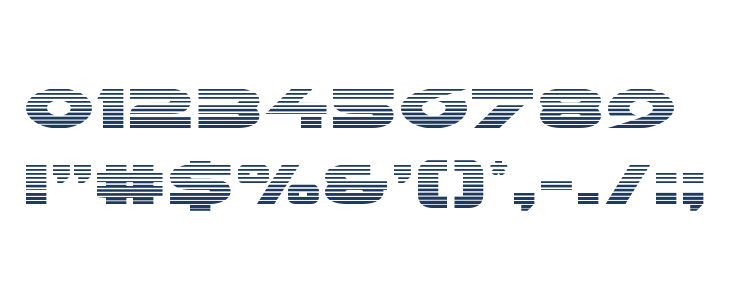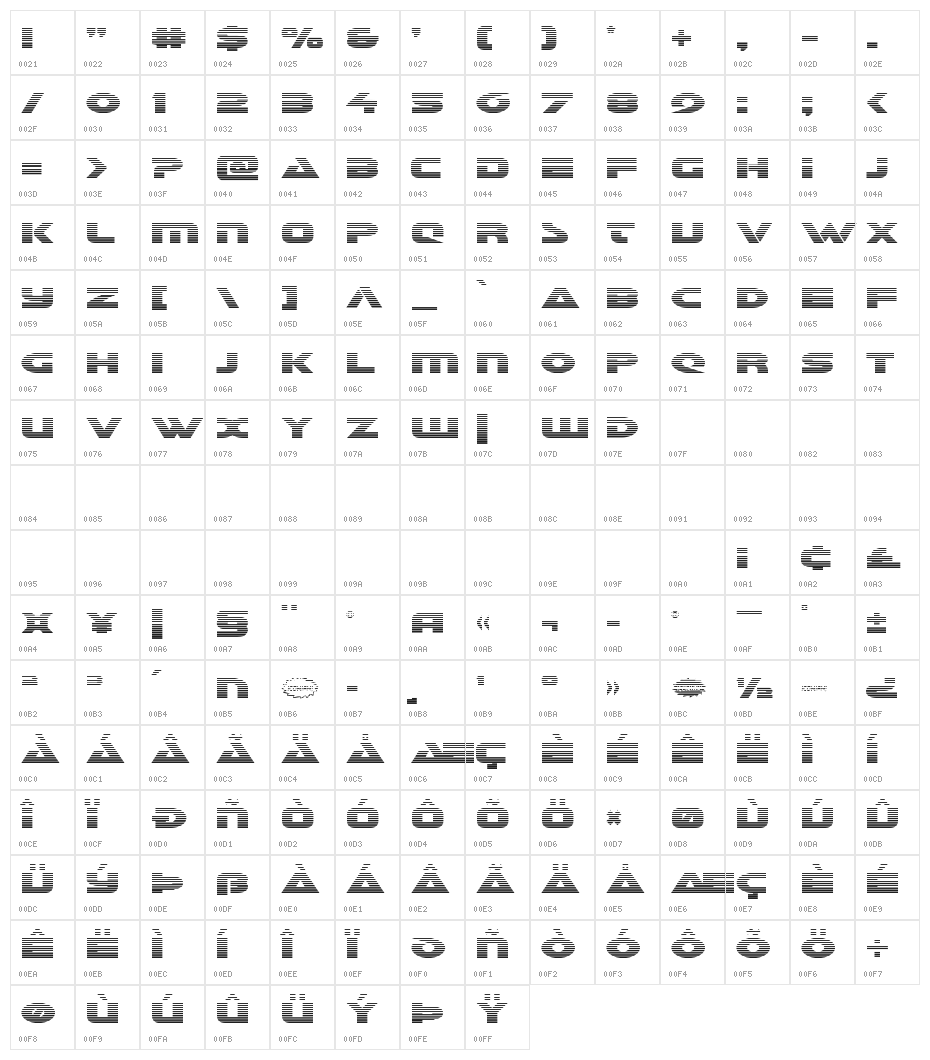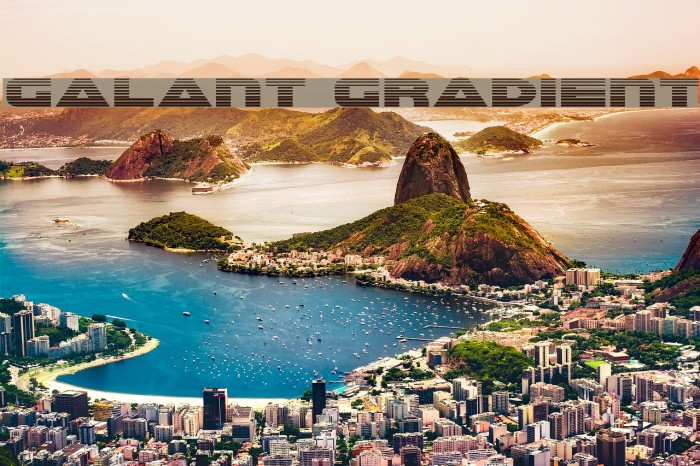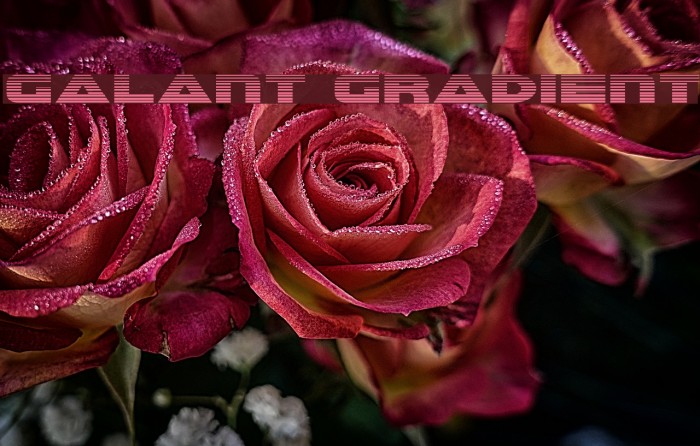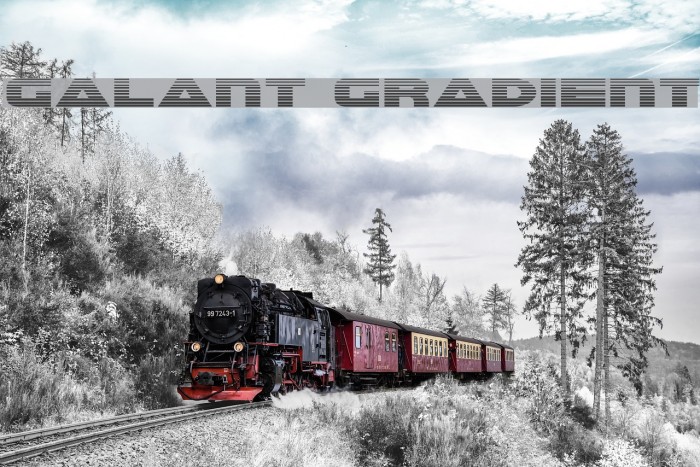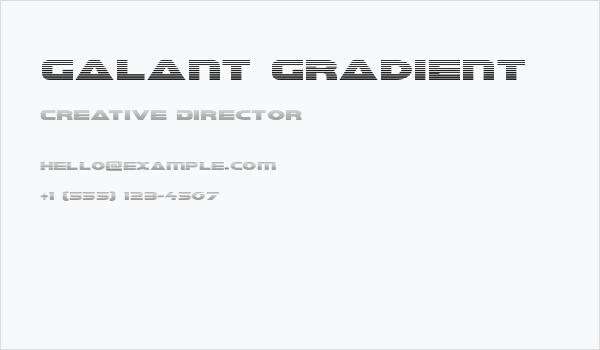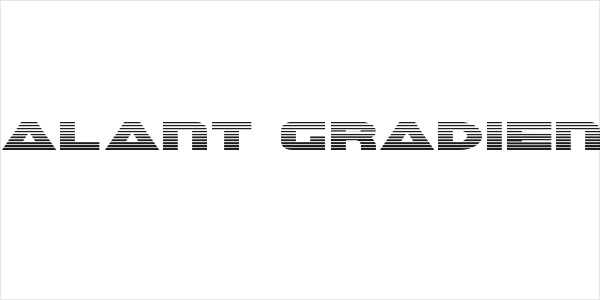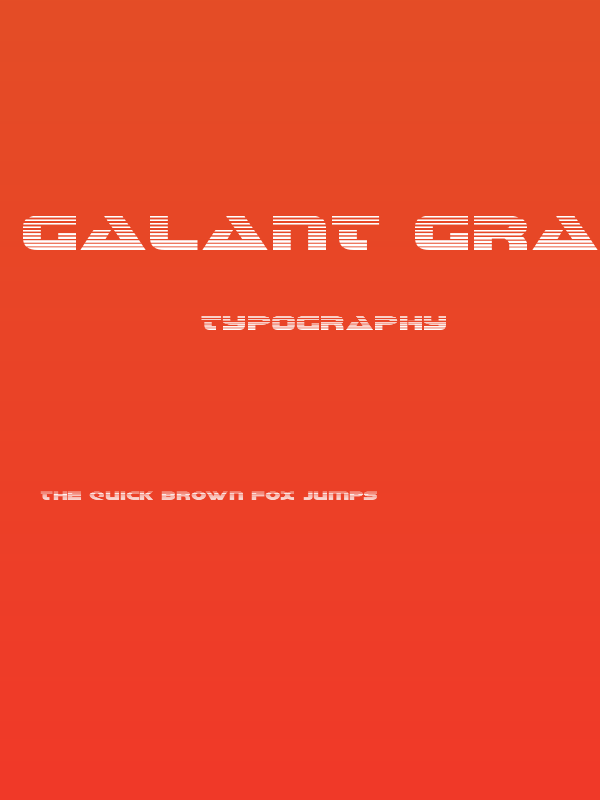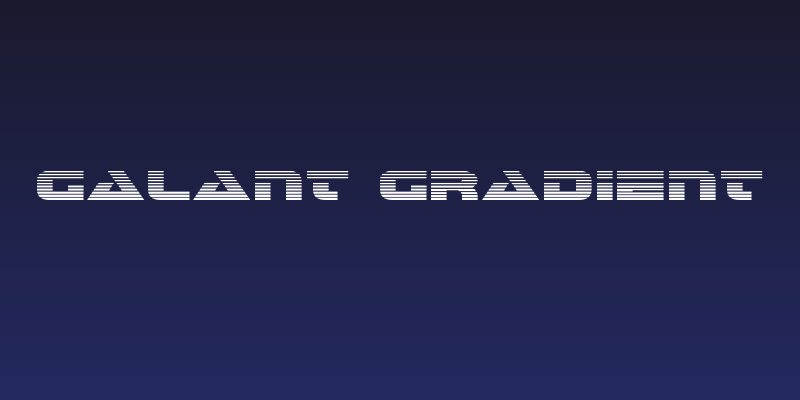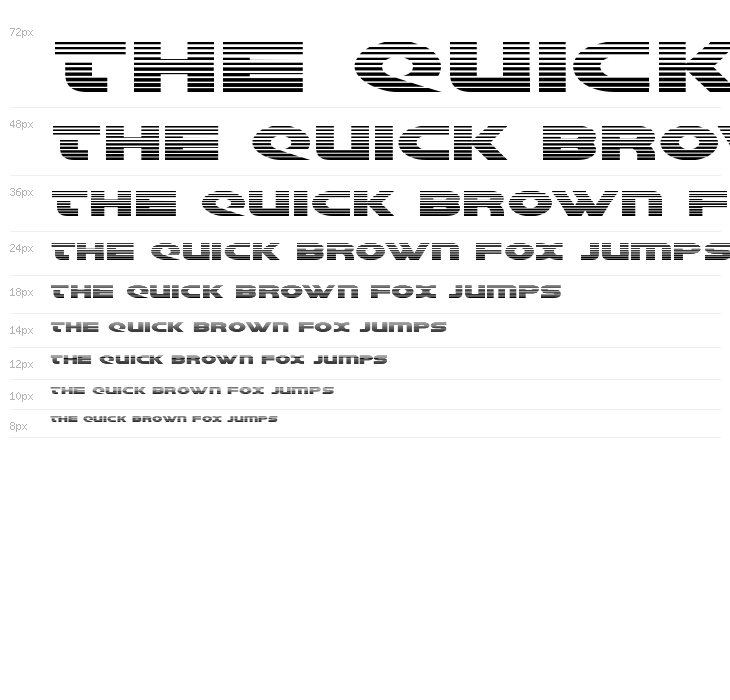
Galant Gradient Font
This font features a unique and striking design characterized by horizontal lines that create a gradient effect across each character. The bold, geometric shapes are modern and futuristic, giving the font a distinct visual appeal. The uppercase and lowercase letters maintain a consistent style, with the horizontal lines providing a sense of movement and depth. The numerals and special characters are equally bold and follow the same design principles, ensuring a cohesive look across all text elements. This font's distinctive style makes it ideal for projects that require a modern and eye-catching aesthetic.